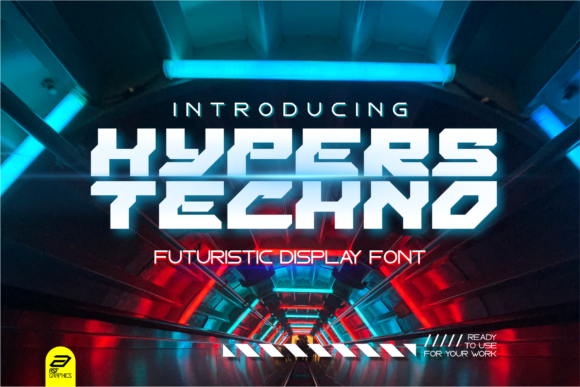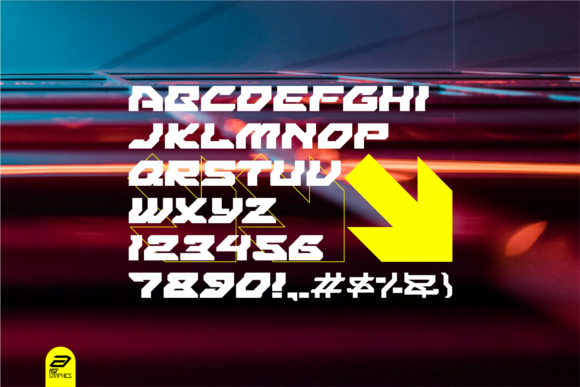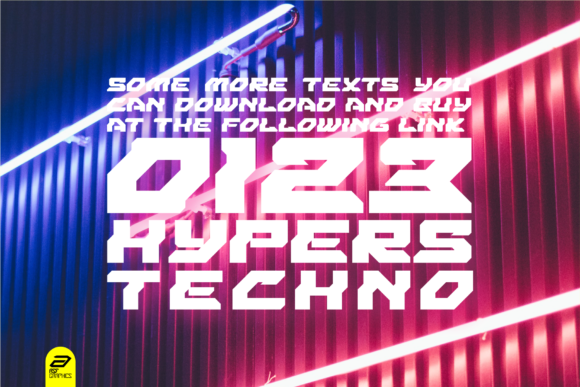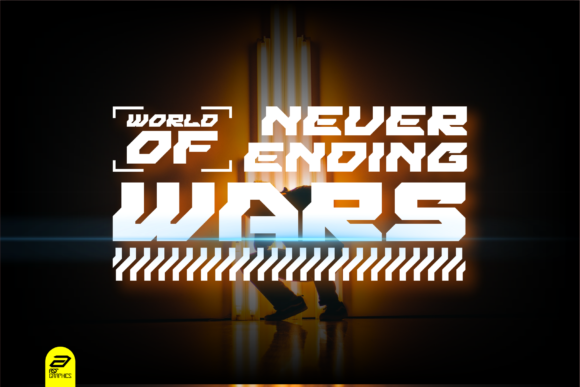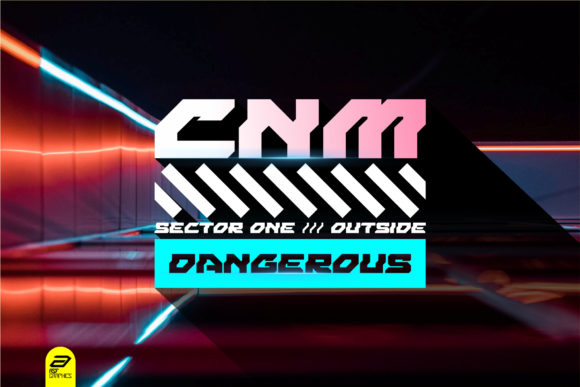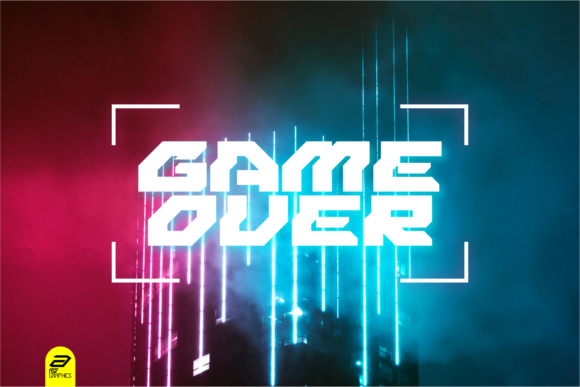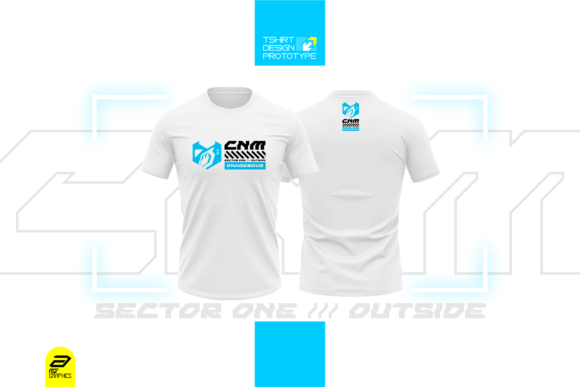
The Perfect Addition to Your Font Library: Hypers Techno Font
Have you ever stared at a blank canvas, wondering how to bring your creative vision to life? The spark of inspiration strikes, and suddenly, the possibilities are endless. You envision a bold, eye-catching title that demands attention and sets the tone for the rest of your design. This is where the Hypers Techno Font comes in – a game-changing, thick-lettered display font that’s ready to elevate your creations.
With its sleek, modern design, Hypers Techno Font is the perfect asset to add to your font library. Whether you’re working on a futuristic tech project, a retro-themed poster, or a sleek branding campaign, this font has the potential to take your designs to the next level. Its bold, attention-grabbing style makes it a valuable tool for designers looking to make a statement and leave a lasting impression.
Hypers Techno Font Key Features
- Font Family: Hypers Techno Font is a digital font family with a futuristic and technological theme.
- Unique Characteristics: This font features a distinctive blend of futuristic and industrial elements, with sharp lines, geometric shapes, and a metallic sheen, making it ideal for sci-fi, technology, and futuristic designs.
Hypers Techno Font Review
Hypers Techno Font has some interesting aspects that make it stand out, especially for those looking for a futuristic feel. ✨ The font is quite bold and eye-catching, with sharp angles and lines that give it a high-tech look. It’s perfect for sci-fi or tech-related projects where you want to convey a sense of innovation and modernity. ✨ The font also has a lot of flexibility, with multiple weights and styles to choose from, making it easy to find the right fit for your project. ✨
However, there are some limitations to consider. ⚠️ The font may not be suitable for all types of projects, especially those that require a more traditional or elegant look. ⚠️ Additionally, the font can be quite overwhelming if used extensively, so it’s essential to use it in moderation to avoid visual fatigue. ⚠️
In terms of overall impression, I would say that Hypers Techno Font is a solid choice for those looking for a futuristic and high-tech font. While it may not be perfect for every project, it’s definitely worth considering if you’re looking for something bold and eye-catching. With a bit of restraint and careful application, this font can really help elevate your design and convey a sense of innovation and modernity.
- Great for sci-fi or tech-related projects
- Multiple weights and styles available
- Flexible and easy to use
- May not be suitable for all types of projects
- Can be overwhelming if used extensively
For a futuristic look, pair the Hypers Techno Font with neon colors and bold shapes.
For a high-tech design, combine the Hypers Techno Font with pixel art and neon accents.
For a modern presentation, pair the Hypers Techno Font with bold headings and sleek graphics.
The Hypers Techno Font is perfect for:
1. Video game and tech-related designs.
2. Futuristic and sci-fi themed projects.
3. Bold and eye-catching headlines.